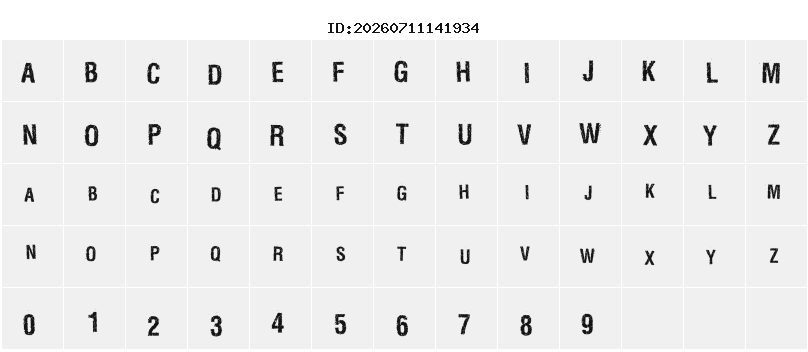
MarbleWasteland Preview
• Font Name: MarbleWasteland
• Full Font Name: MarbleWasteland
• Version: Version 1.00 April 21, 2013, initial release
• Designer: Xerographer Fonts Max Infeld
• Manufacturer: Xerographer Fonts
• Description: Made at Naked Lounge Coffee in Chico,CA a custom template by max infeld who is so sexy
About MarbleWasteland.ttf
MarbleWasteland.ttf is a modern, elegant sans-serif font designed for ultimate readability and visual harmony. Perfect for branding, headlines, web design, and print materials.